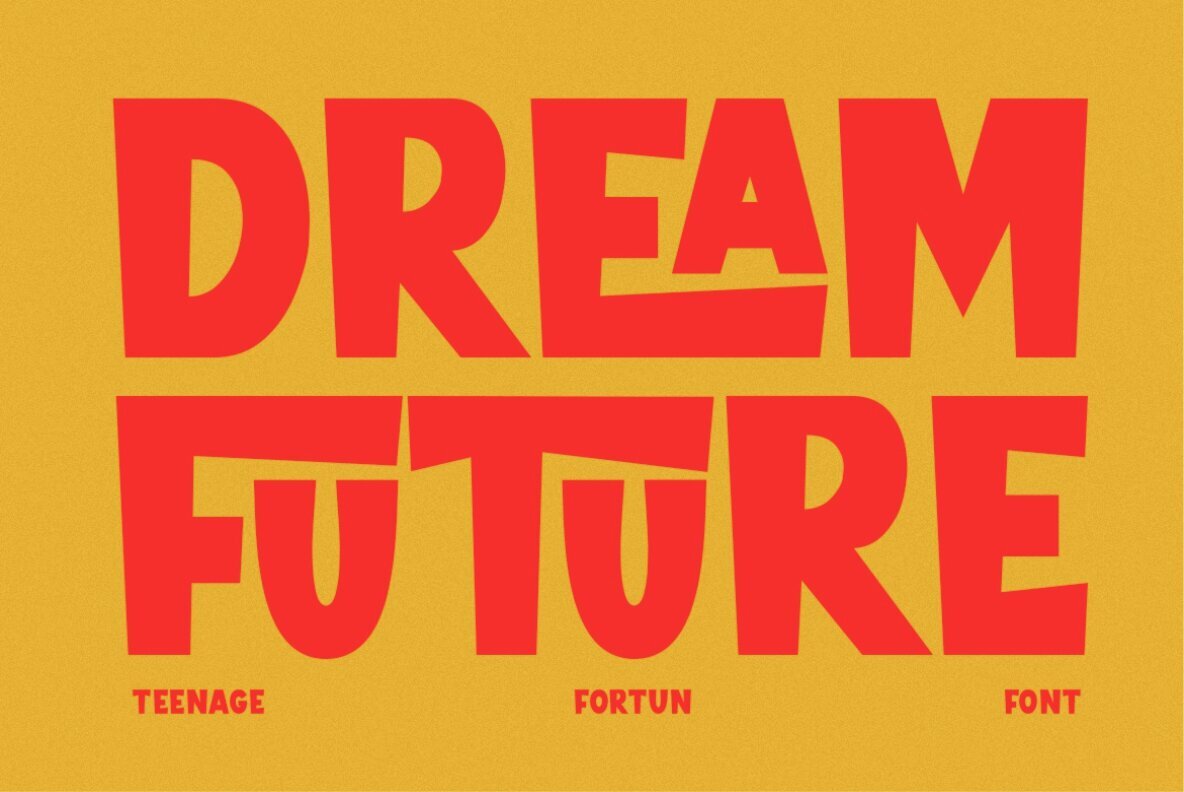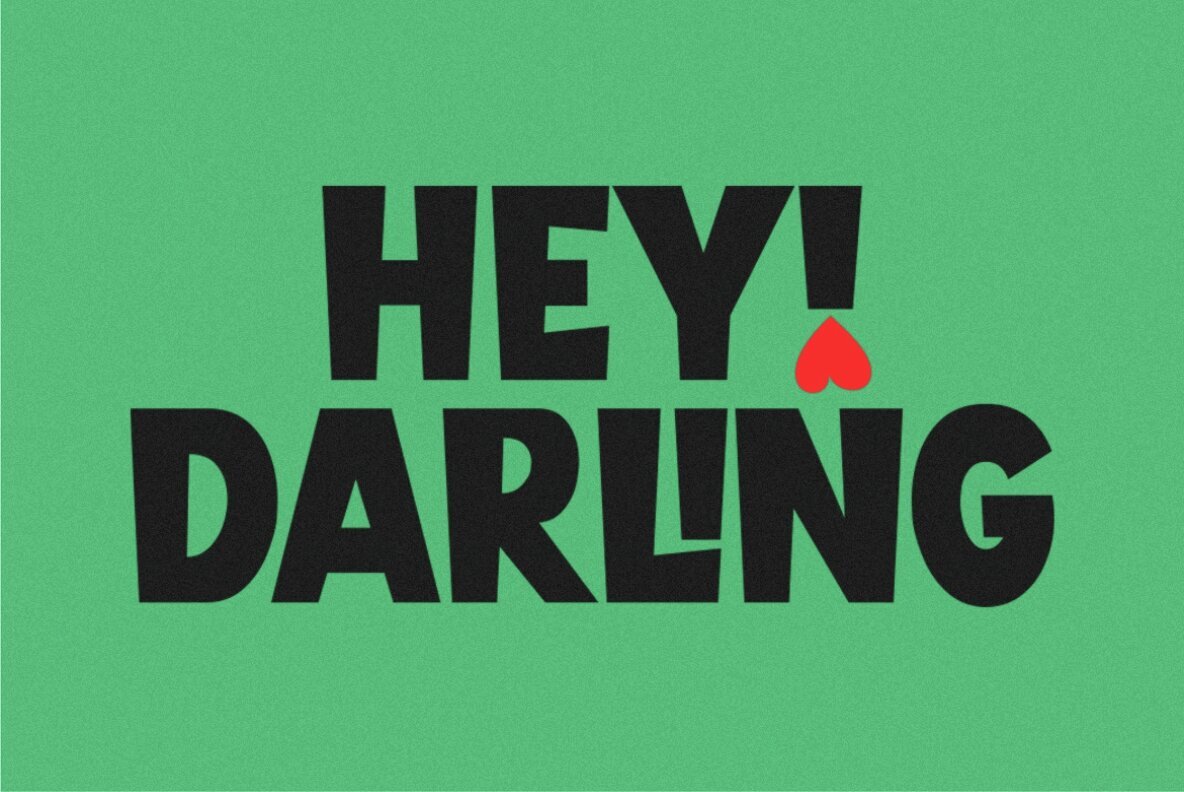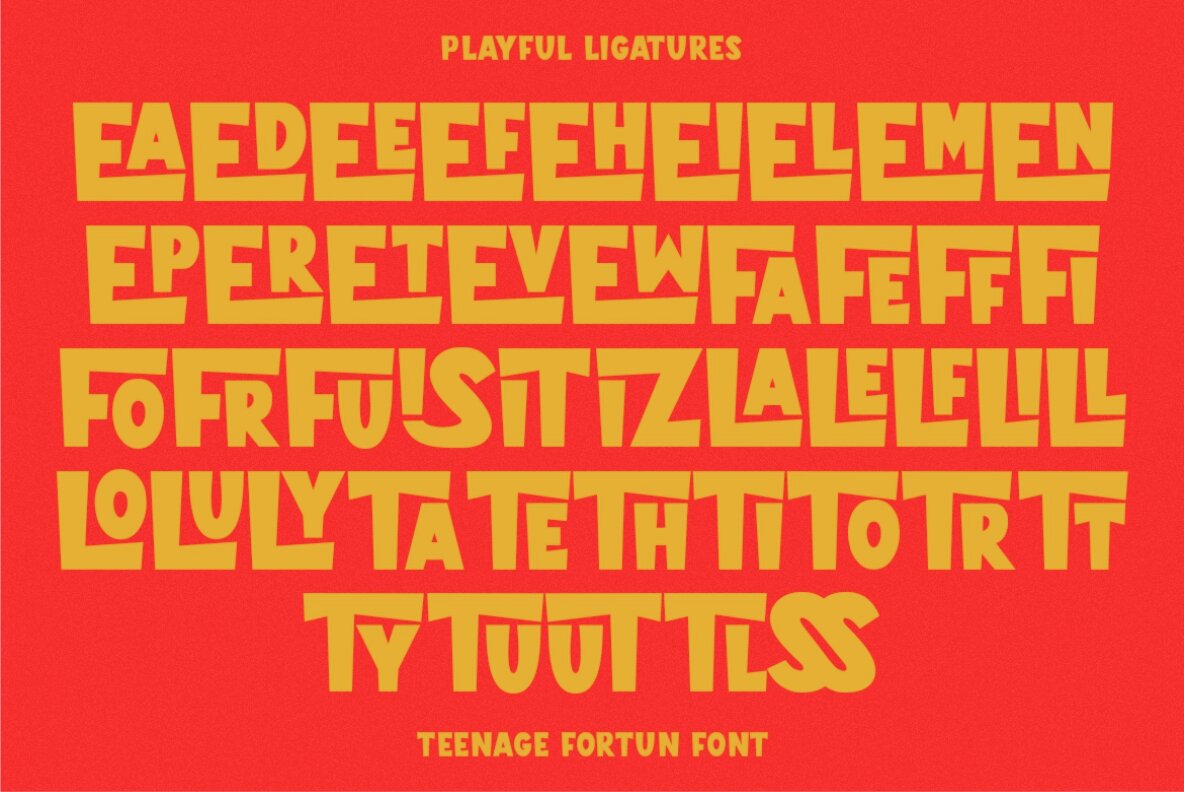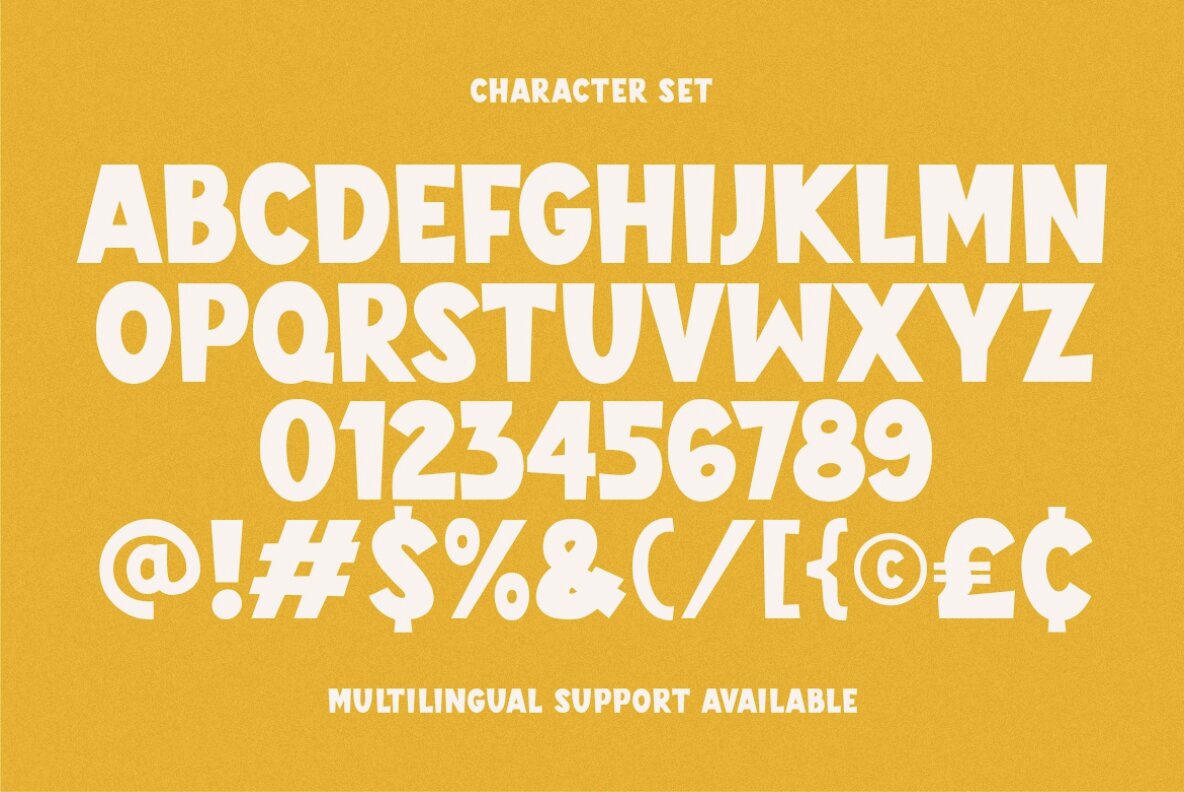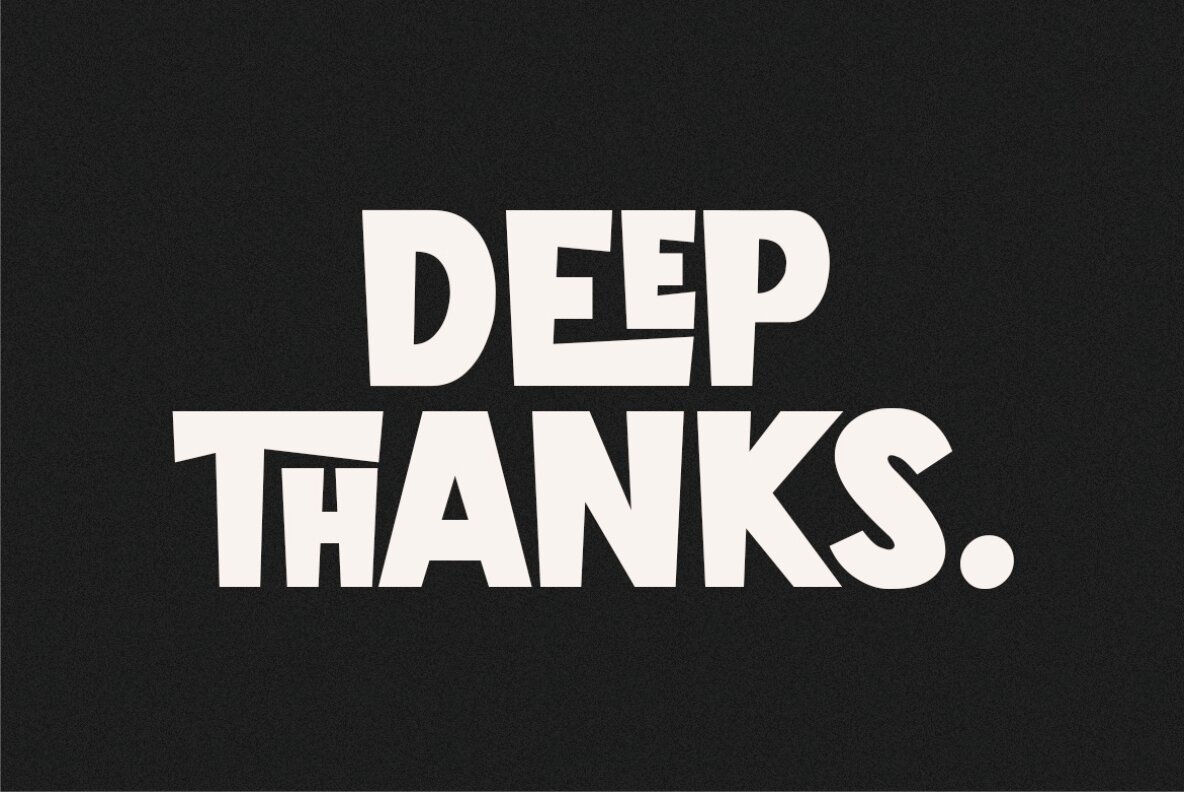
Teenage Fortun Font
Teenage Fortun Regular
Teenage Fortun is a captivating and distinctive display font that combines a boxy structure with a touch of rebellious charm. The boxy design of Teenage Fortun gives it a modern and geometric aesthetic. Each letter is crafted with clean lines and sharp angles, creating a visually impactful presentation. One of the exceptional features of Teenage Fortun is its extensive set of beautiful ligatures. These ligatures are specially designed combinations of letters that flow seamlessly together, creating a harmonious and visually appealing effect. These decorative ligatures add a touch of elegance, flair, and uniqueness to your typography, making your designs stand out from the crowd.